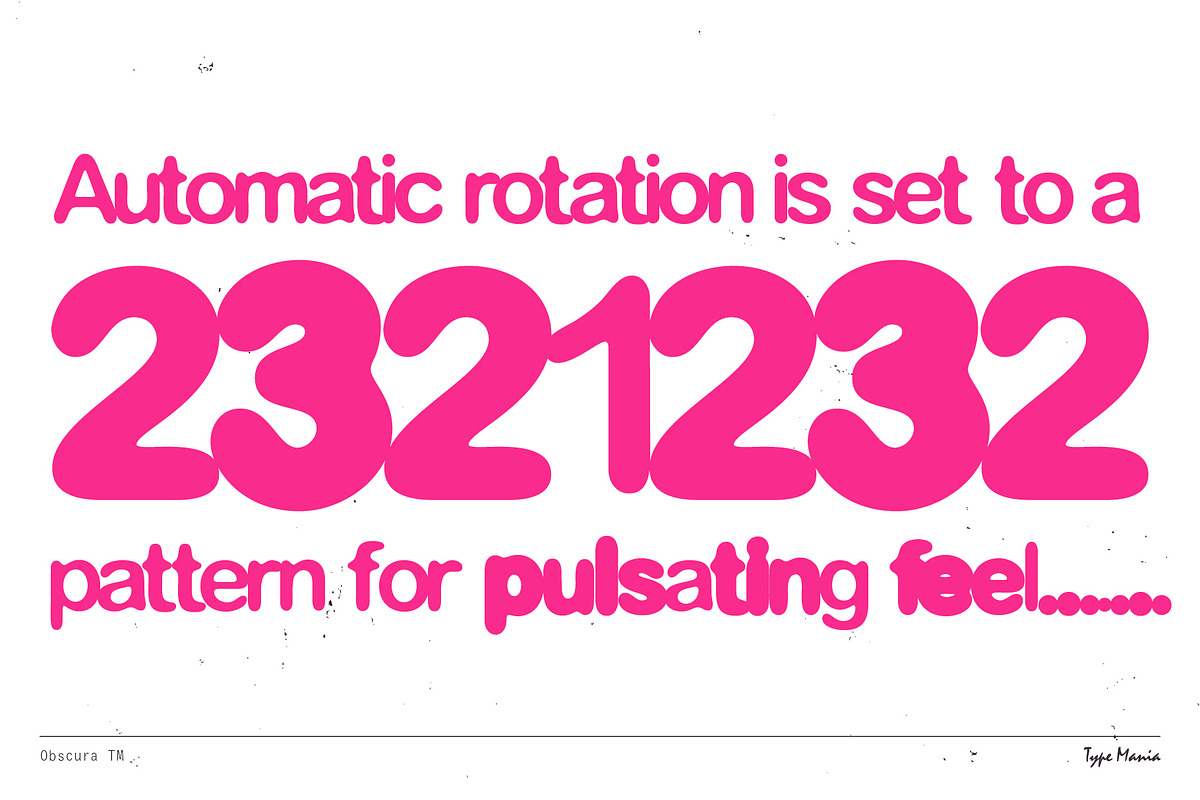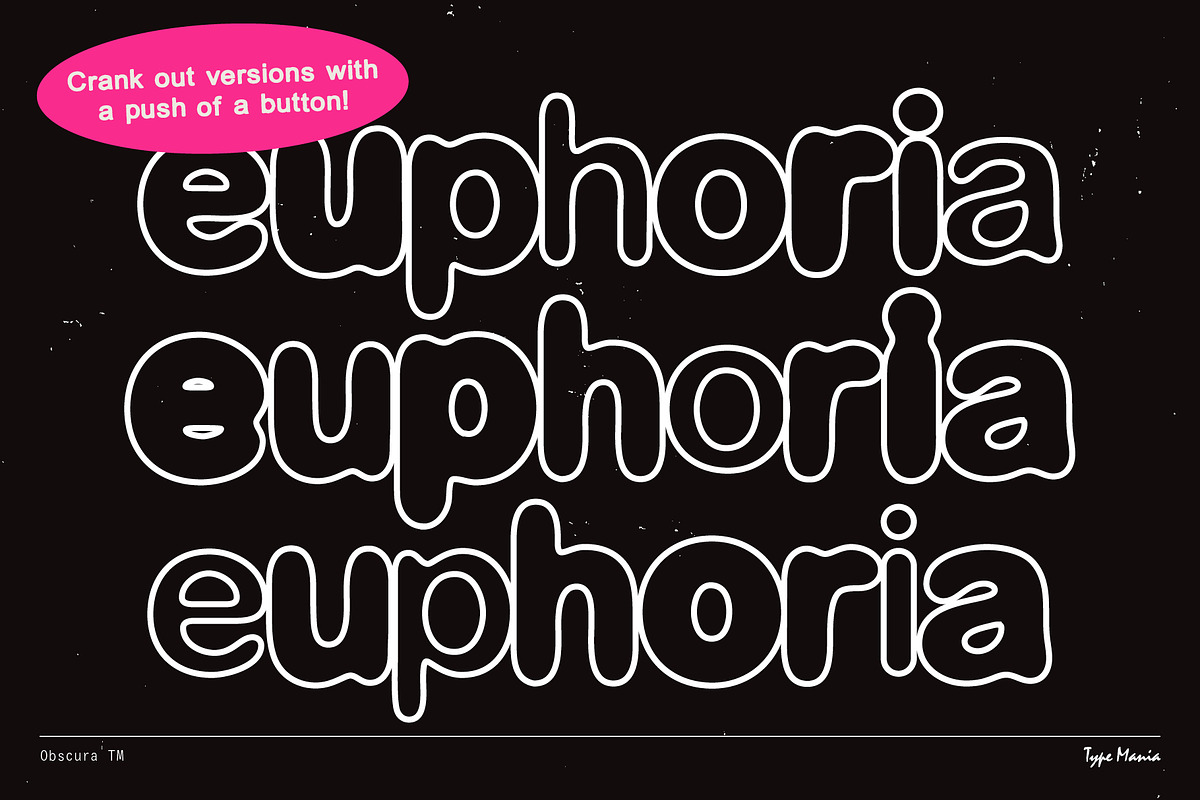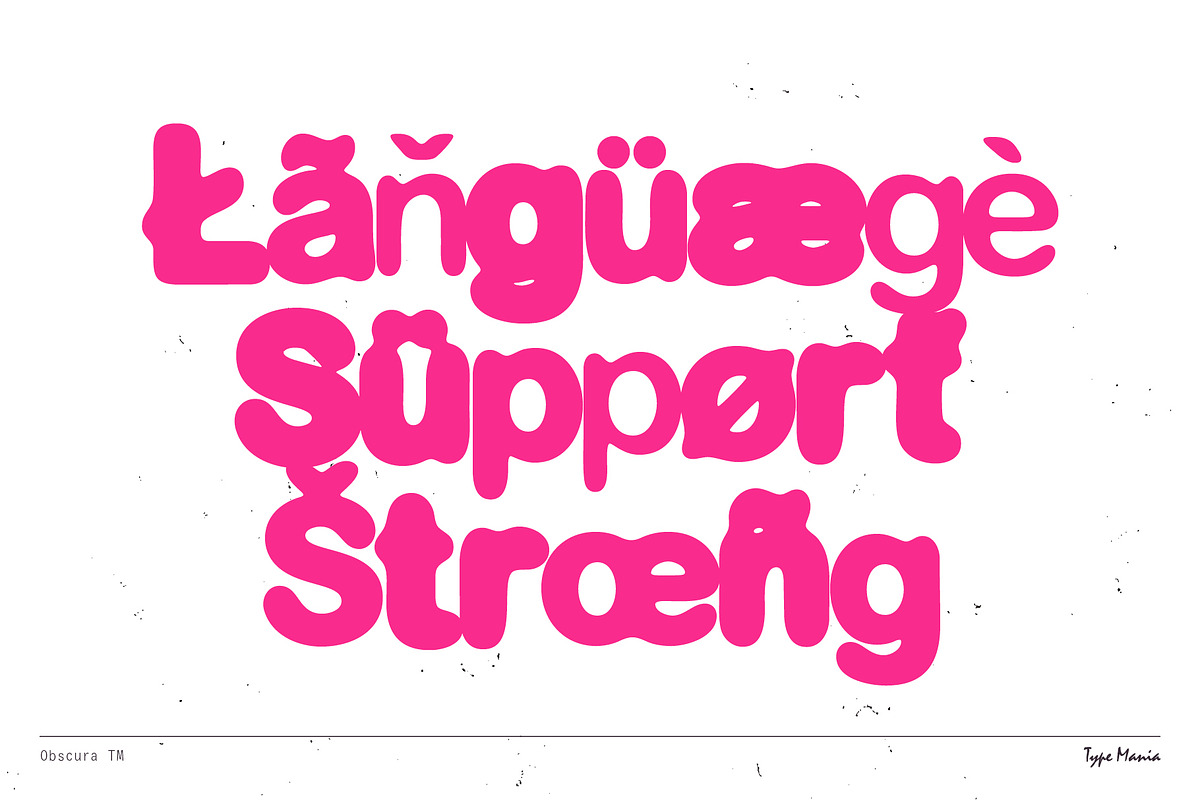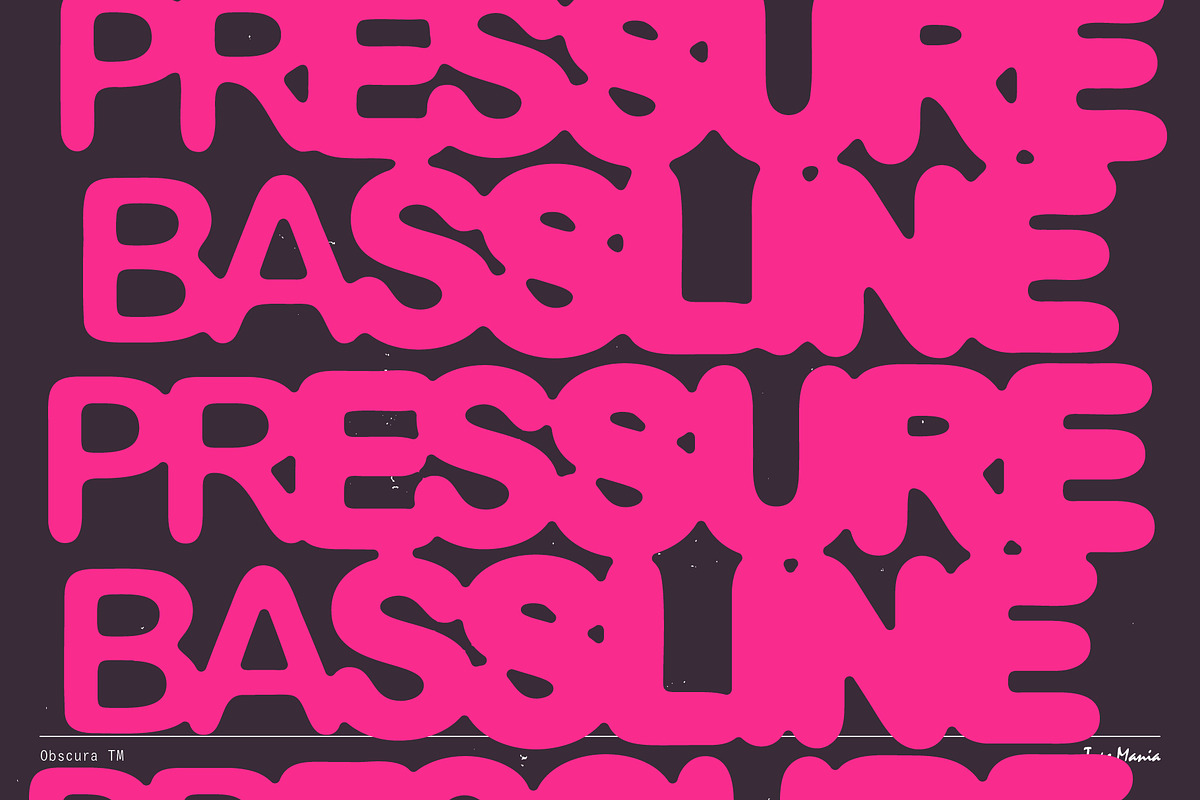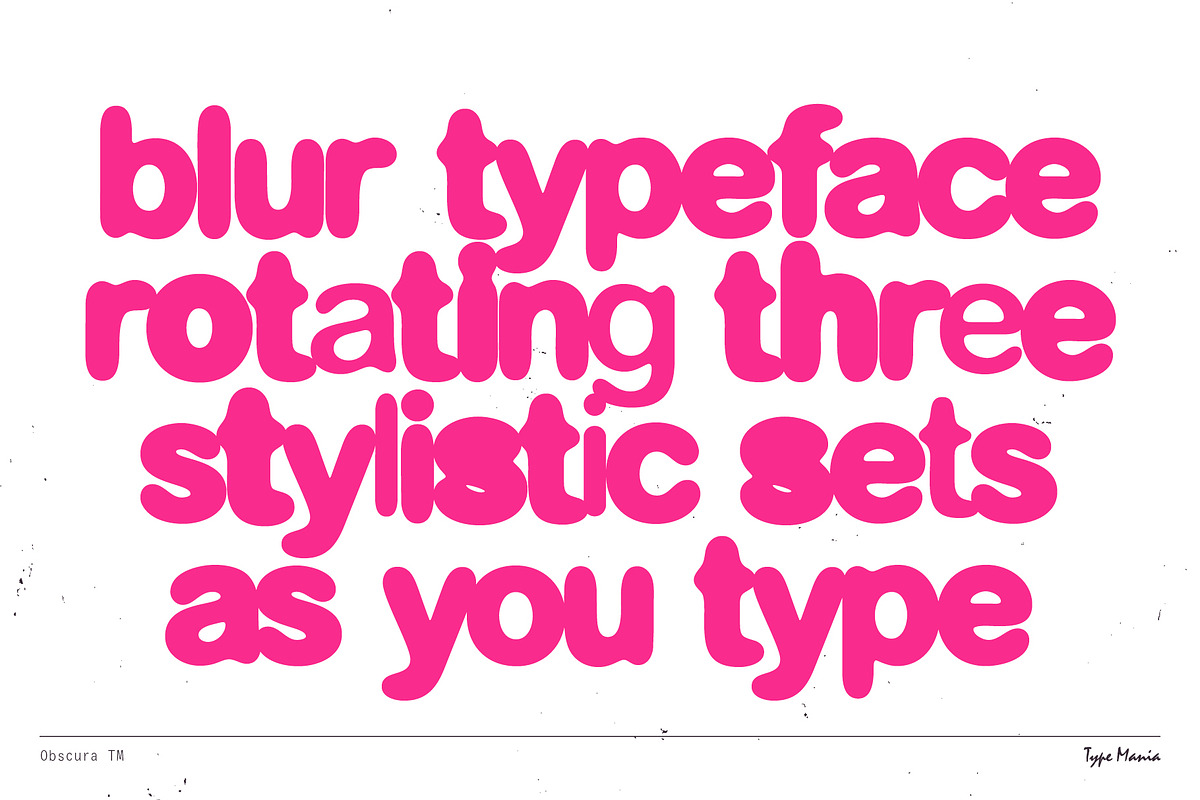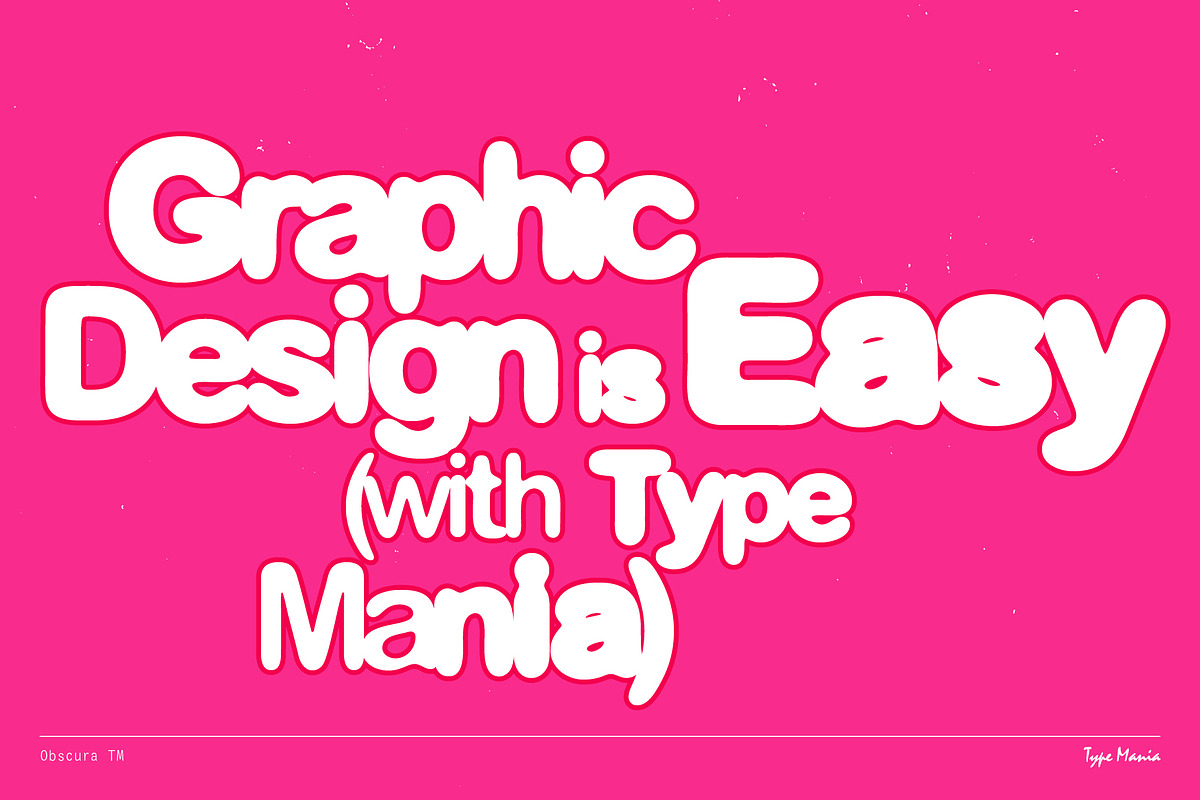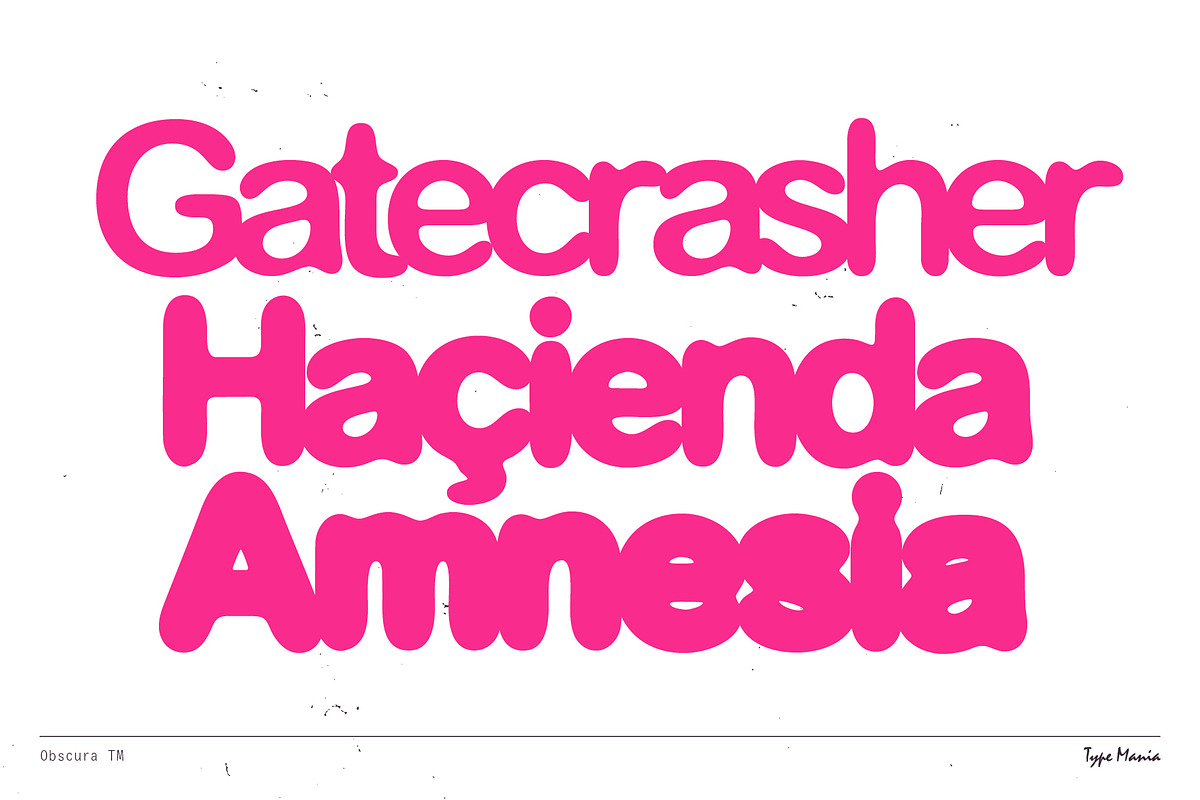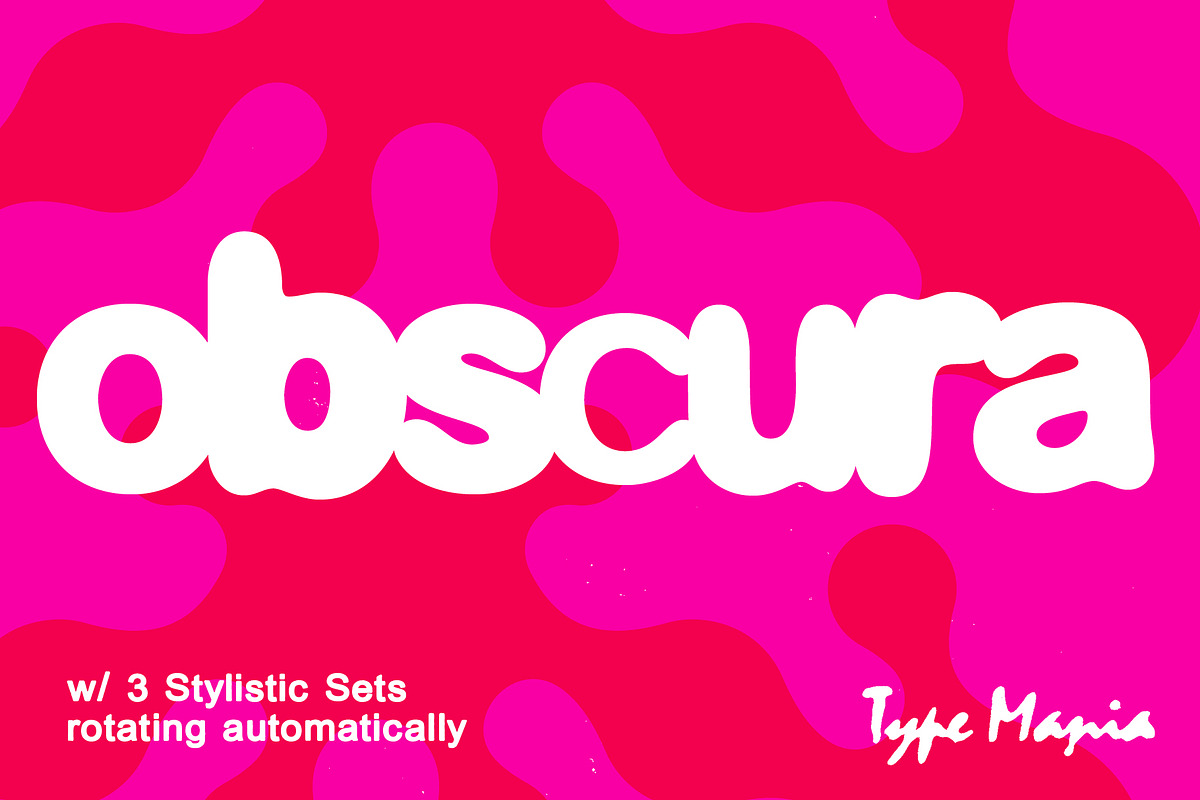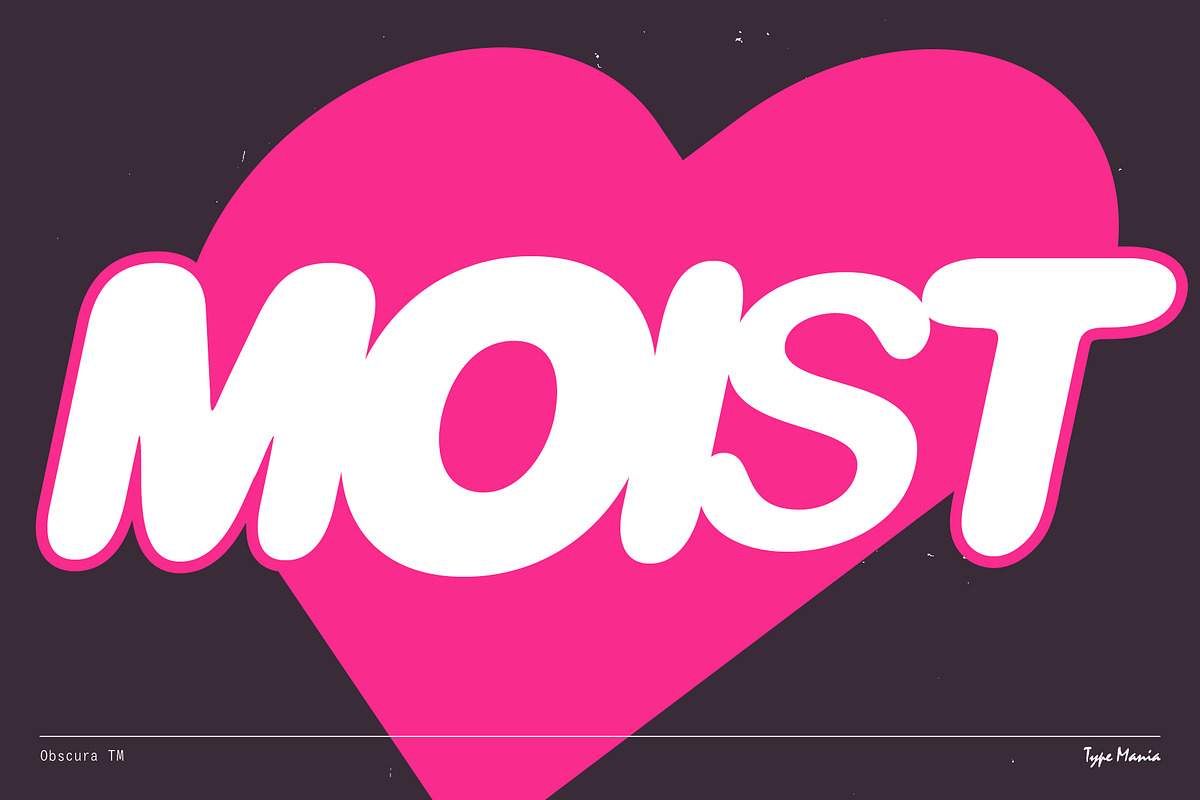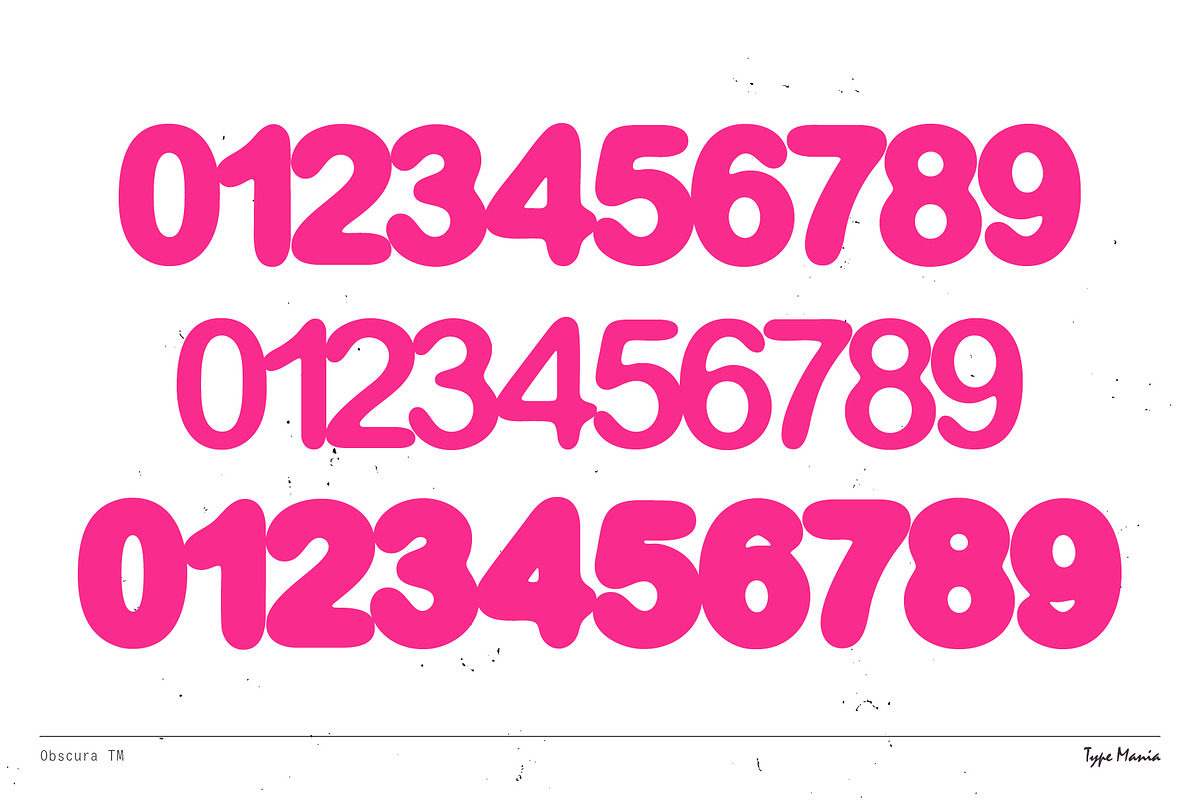
Obscura TM โ Automatic Blurry Type
Obscura TM takes the "blurry font" idea to a new level. Its three stylistic sets shuffle automatically as you type (with the Contextual Alternates turned on) โ as woozy as u wanna be ๐ตโ๐ซ Perfect for flyers, posters, nightlife... whenever you want to mess things up a little.
OpenType features
- 3 stylistic sets
- The font is programmed to automatically shift between the stylistic sets